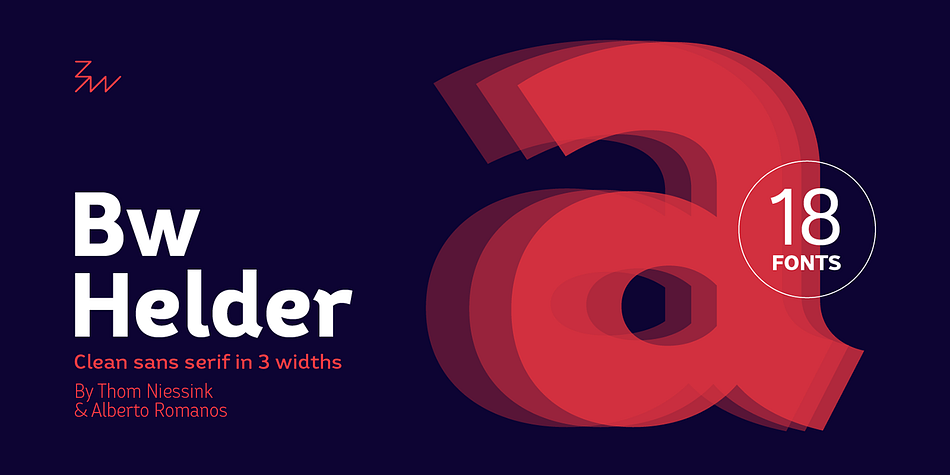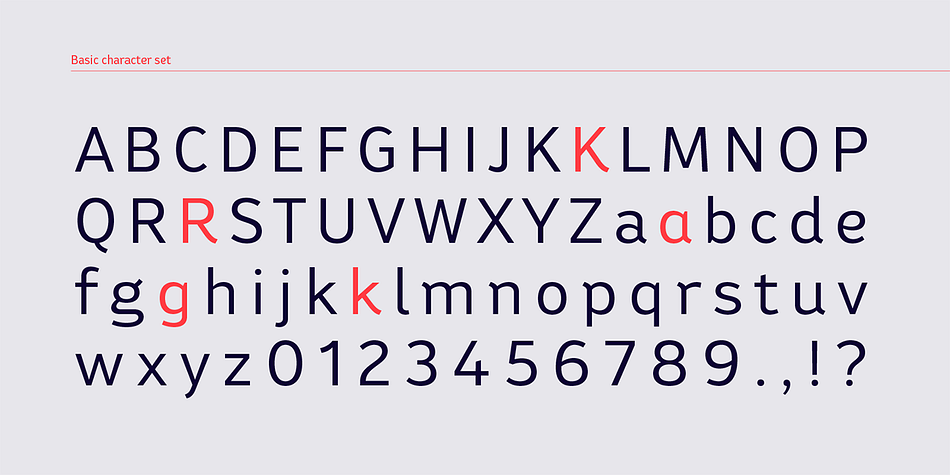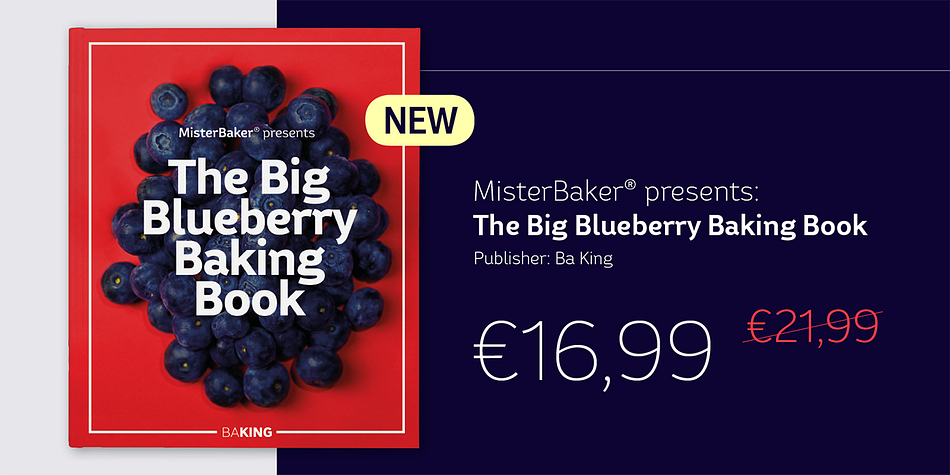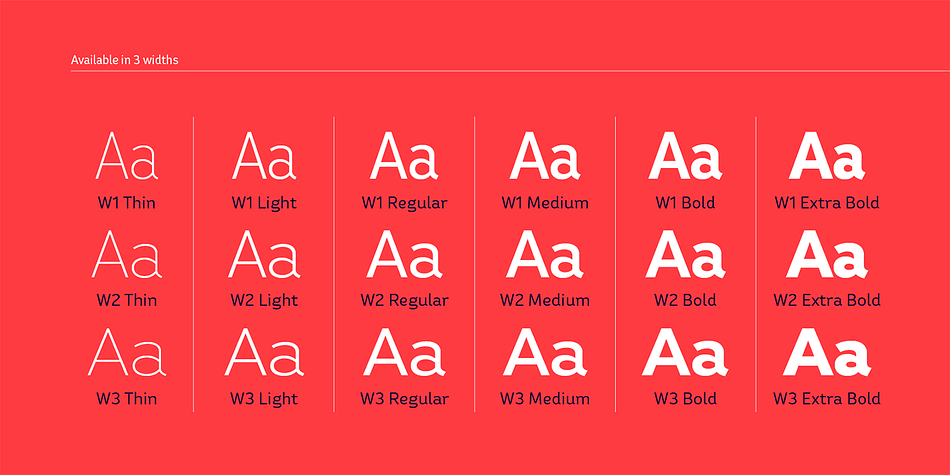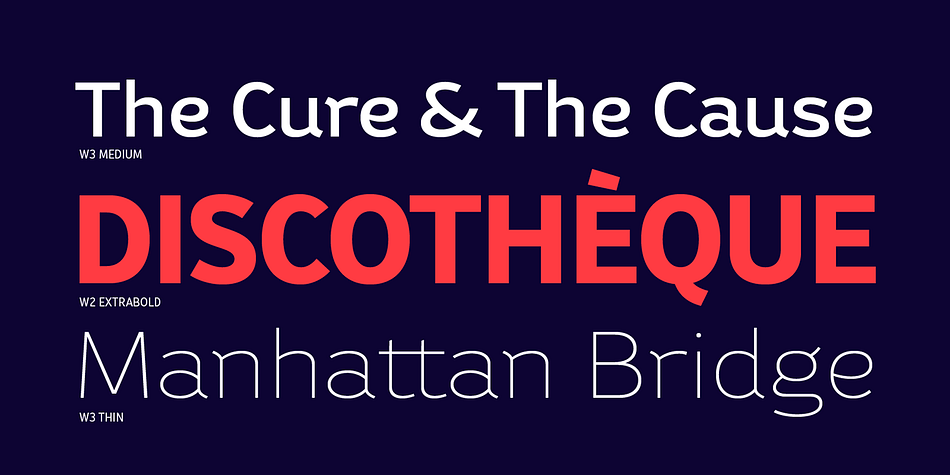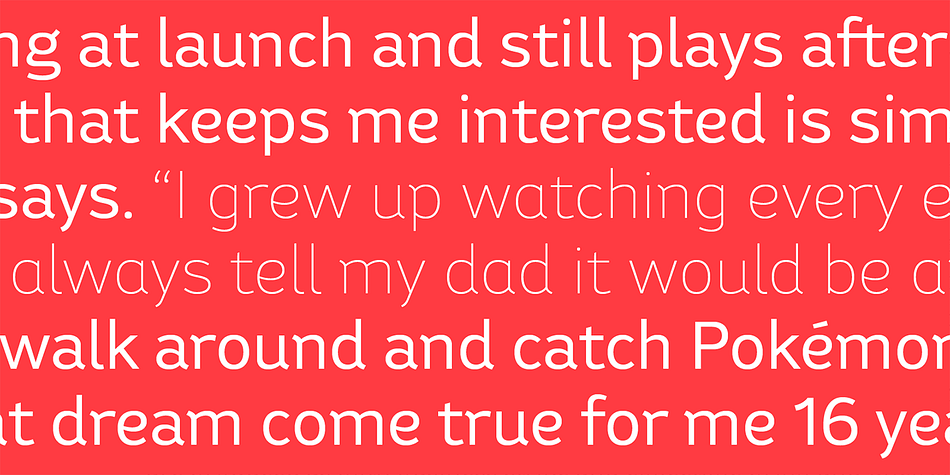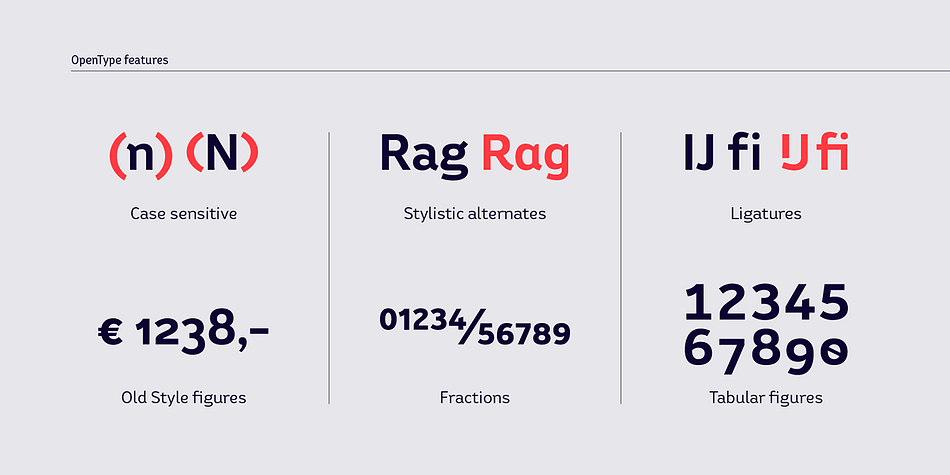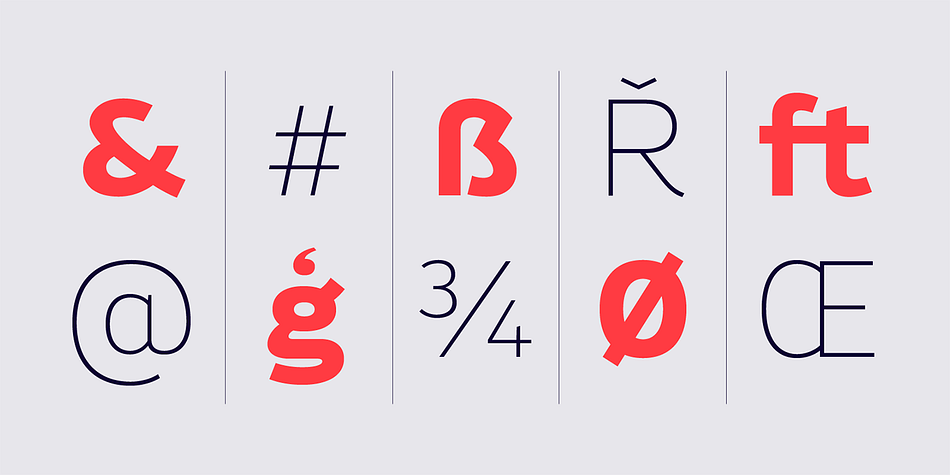
Designed by Thom Niessink and Alberto Romanos, Bw Helder is a sans serif font family. This typeface has eighteen styles and was published by Branding With Type.
Bw Helder is a clean and versatile sans serif combining gentle subtleties on its curves with remarkable spurs branching off its stems.
It instills a friendly yet professional tone of voice, while maintaining the composure when used in longer paragraphs at small sizes. Three different widths across six weights provide plenty of options and flexibility for the task at hand.
Designed by Thom Niessink & Alberto Romanos, Bw Helder is the first font on our library born out of the direct collaboration of two designers. This type family is inspired by an old piece of lettering Thom came across: The ornamental serifs featured on the original lettering have been tamed down attending to a functional criteria, conferring this type family its unique character without compromising its legibility.